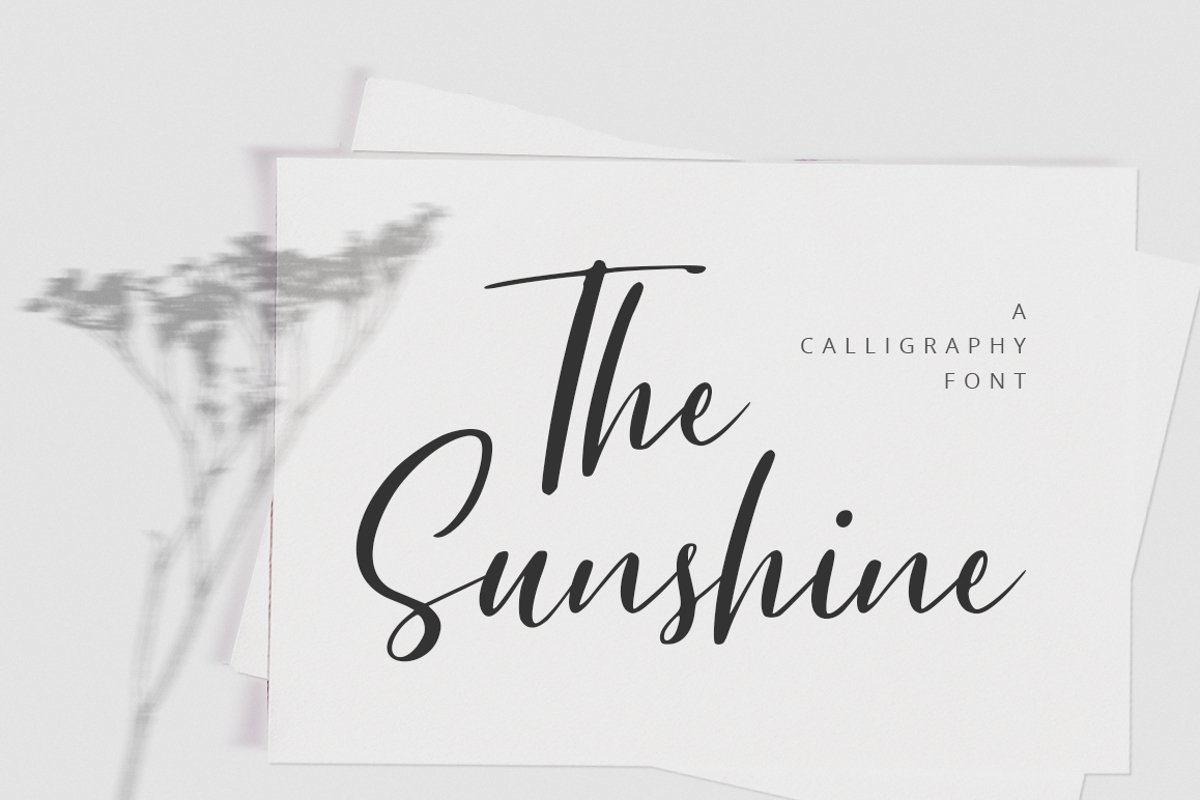
The Sunshine
The Sunshine simplifies elegance into one truly outstanding script font. It will elevate a wide range of design projects to the highest level, be it branding, headings, wedding designs, invitations, signatures, logos, labels, and much more!
This font is PUA encoded which means you can access all of the beautiful glyphs and swashes with ease! It also features a wealth of special features including alternate glyphs and ligatures. Fall in love with its gorgeous swashes!